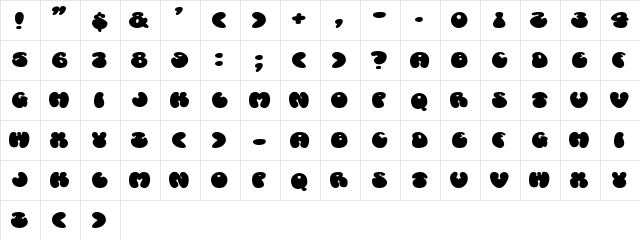
Cosmoscandy Regular
Design Context for Cosmoscandy
Cosmoscandy is a composed and adaptable typeface that performs quietly and consistently across a wide range of design contexts.
Pro Tip: Use Cosmoscandy in both headline and body roles to test its range before committing to a single application.